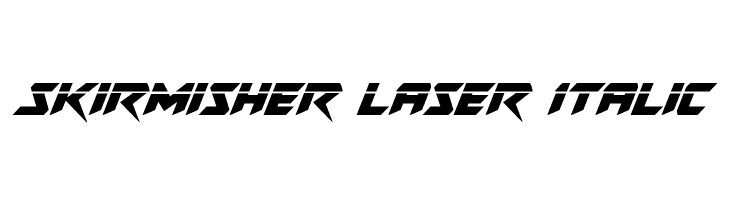
A bold, futuristic font with sharp, angular edges and an italicized slant.
A bold, angular font with sharp, geometric edges and a dynamic slant.
A bold, angular font with a dynamic, forward-leaning slant.